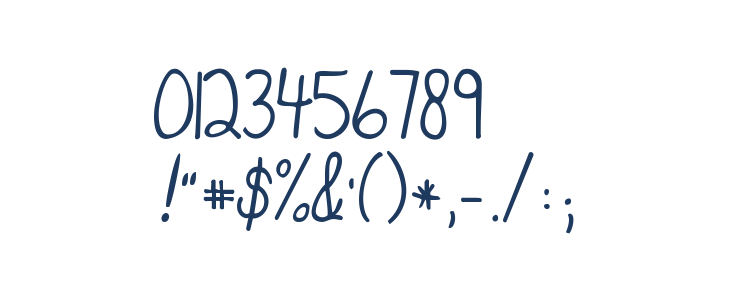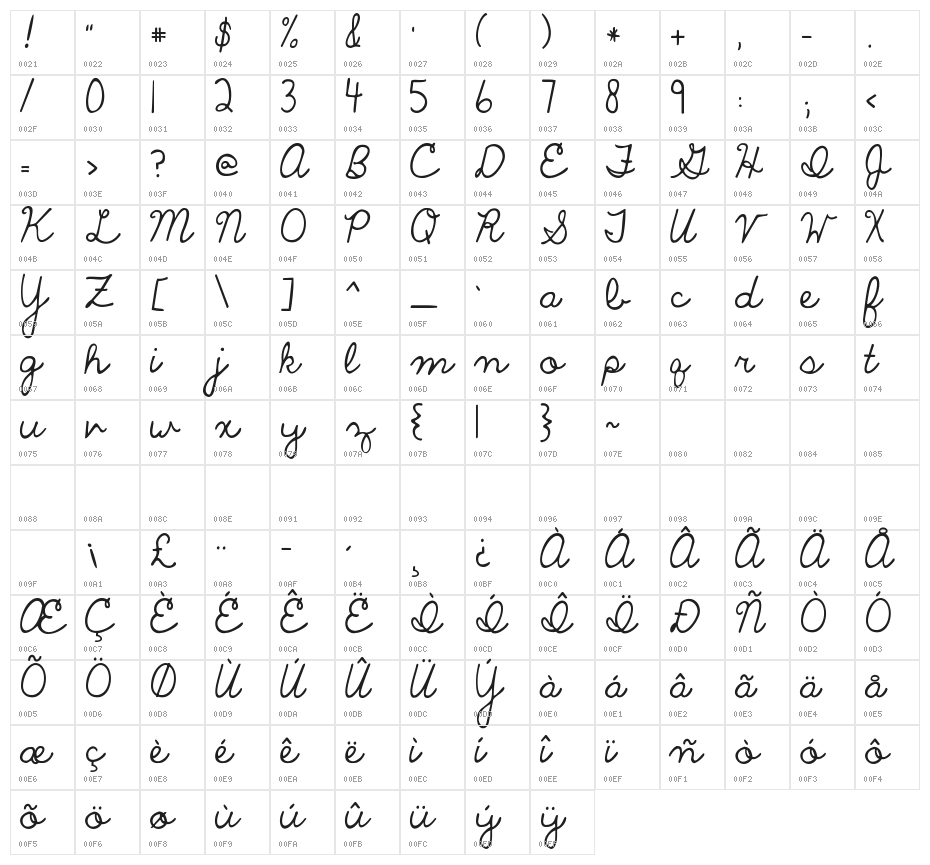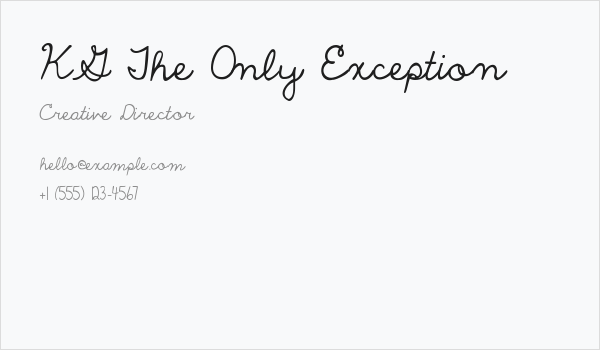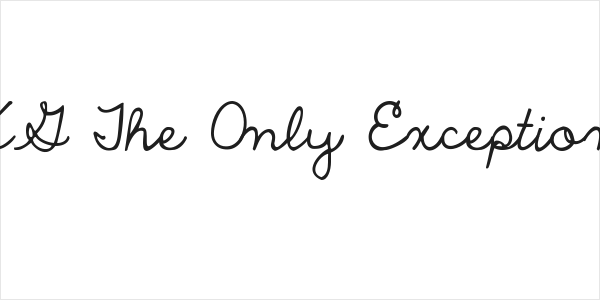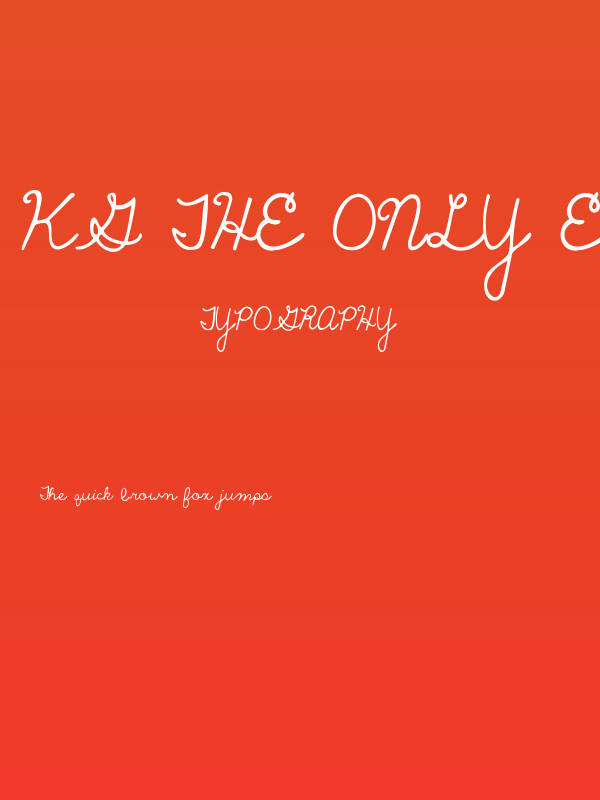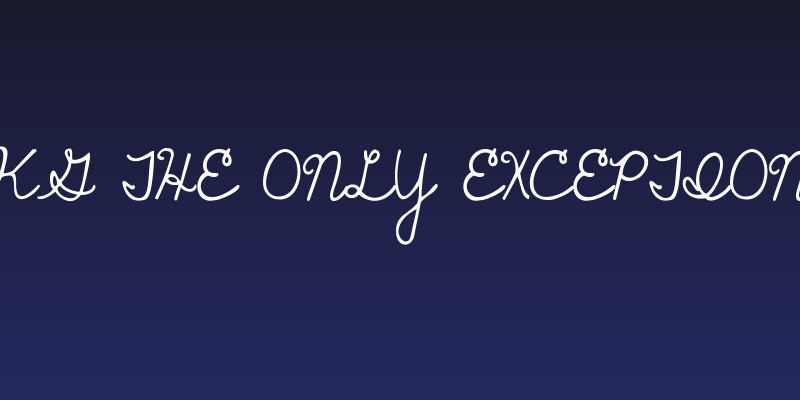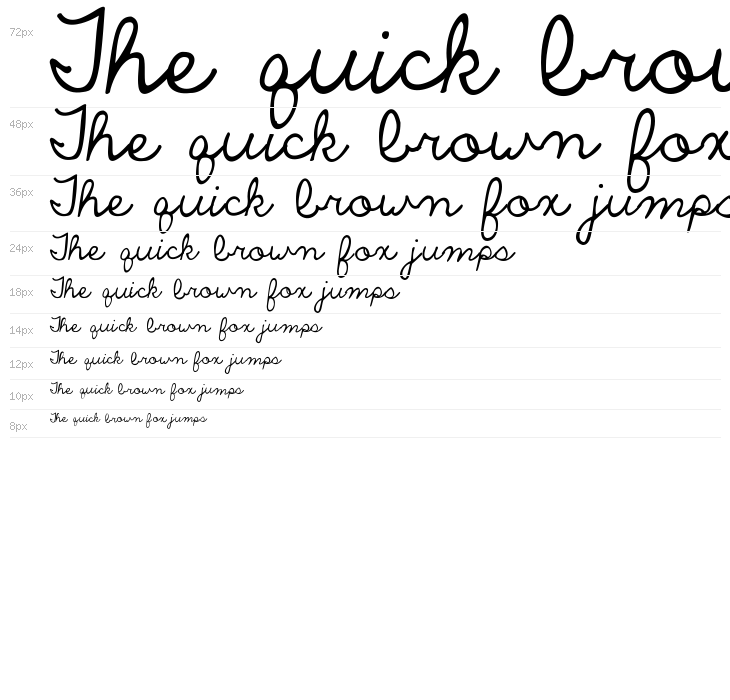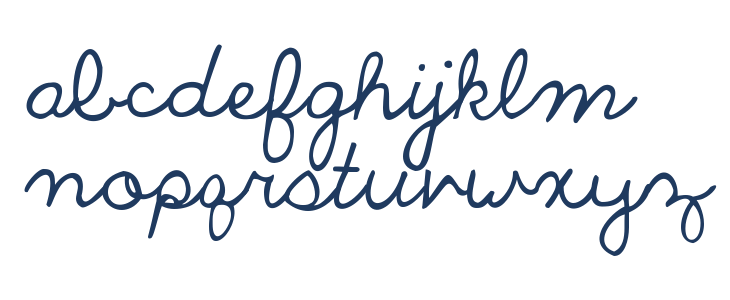
KG The Only Exception Font
KG The Only Exception Description
This font features a playful and whimsical handwritten style, characterized by its smooth, flowing curves and loops. The letters are connected in a cursive manner, giving it a personal and informal touch. The uppercase letters maintain a consistent height, while the lowercase letters exhibit a slight slant, enhancing the casual feel. The numerals are clear and distinct, matching the overall style of the alphabet. Special characters are creatively integrated, maintaining the font's cohesive appearance. This font is ideal for projects that require a friendly and approachable aesthetic.